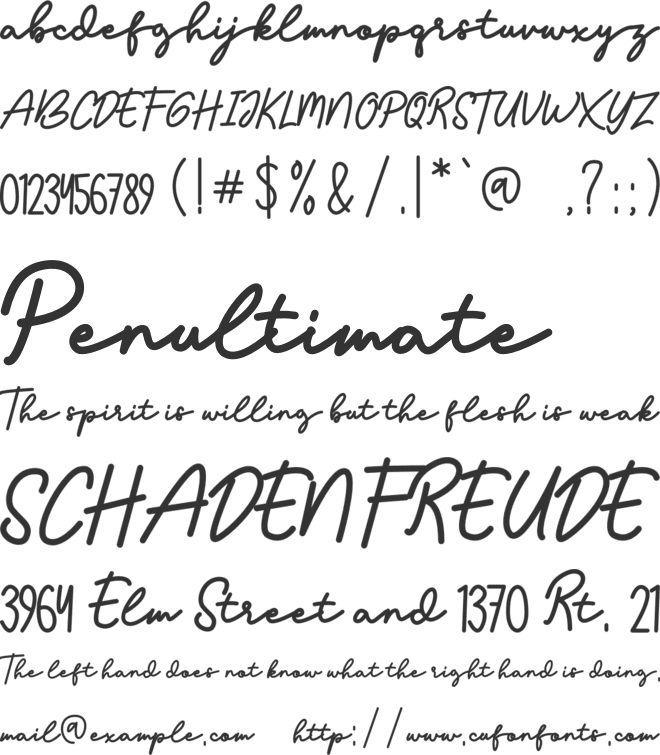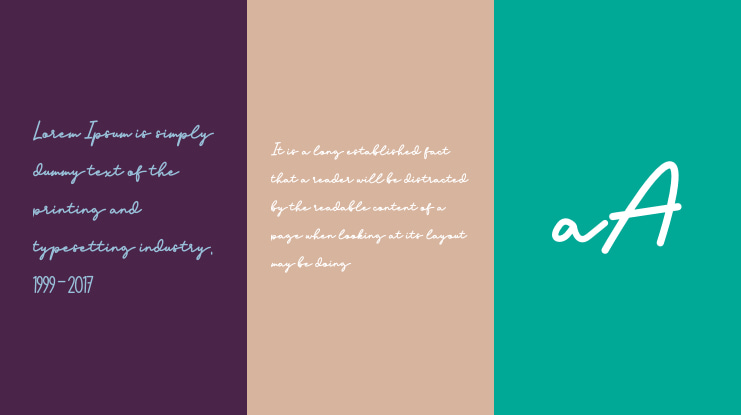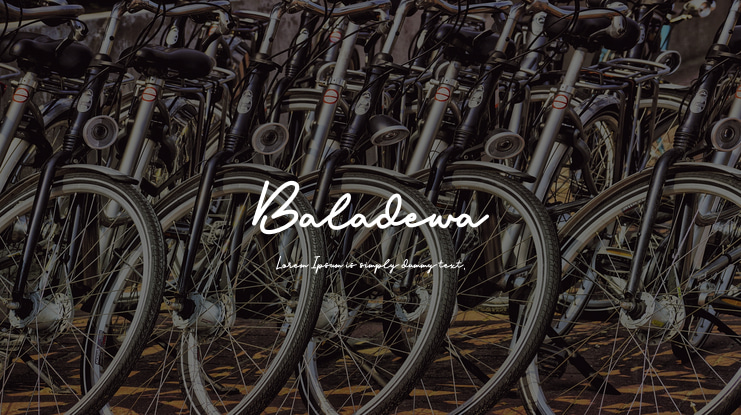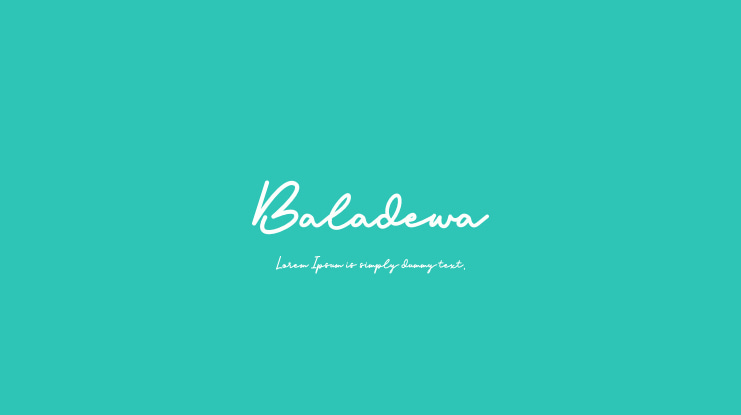
Baladewa Font
Baladewa is a modern handwritten font that can be used for wedding invitations and wedding calligraphy, quotes, feminine or organic logos, small business branding, business cards, packaging, and many more creative ideas!